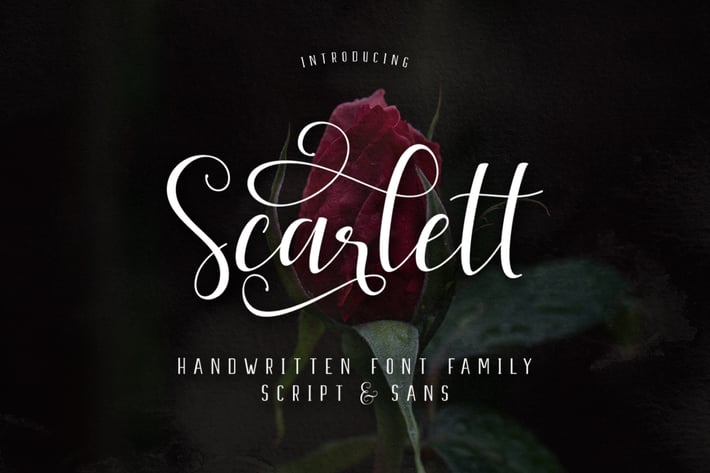
Scarlett Font Family
Introducing
Scarlett Font Family modern script & Sans with a handmade calligraphy style, decorative characters and a dancing baseline! So beautiful on invitation like greeting cards, branding materials, business cards, quotes, posters, and more!!
Scarlett Font Family come with 405+ glyphs. The alternative characters were divided into several Open Type features such as Swash, Stylistic Sets, Stylistic Alternates, and Ligature. The Open Type features can be accessed by using Open Type savvy programs such as Adobe Illustrator, Adobe InDesign, Adobe Photoshop Corel Draw X version, And Microsoft Word. And this Font has given PUA unicode (specially coded fonts). so that all the alternate characters can easily be accessed in full by a craftsman or designer.
Scarlett Font Family Features :
Uppercase & Lowercase International Languange & Symbols Support Punctuation & Number PUA Unicode Range Standard Ligatures Discretionary Ligatures Stylistic Alternates Stylistic Set 1-21: